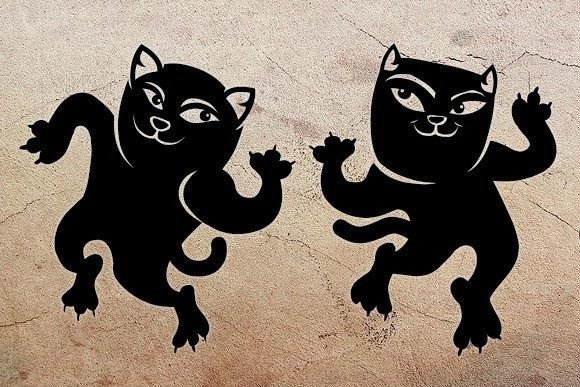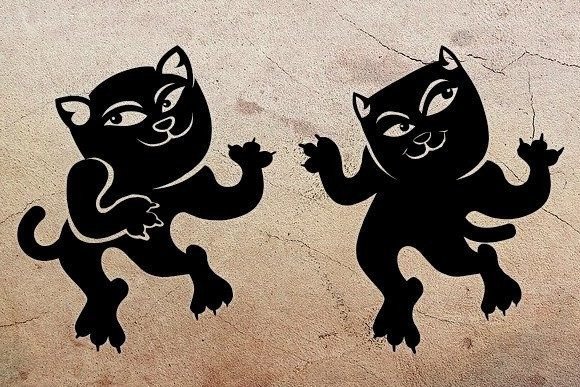
Introduction to Dancing Cat Font
Dancing Cat is an awesome cat dingbat.
This dingbat will look stunning on any poster, flyer, or print .
Why Choose Dancing Cat Font?
Dancing Cat Font offers exceptional quality and versatility, making it a valuable addition to your design toolkit. Whether you’re creating for personal projects or commercial use, Dancing Cat Font delivers professional results.